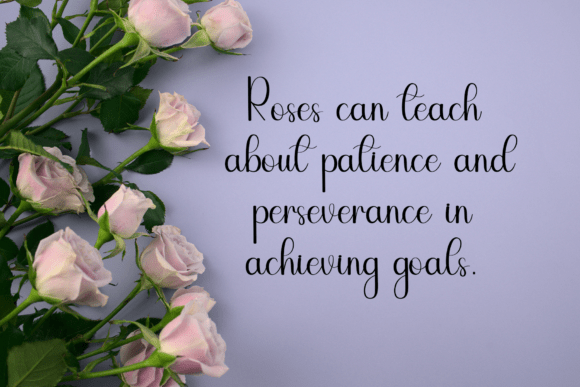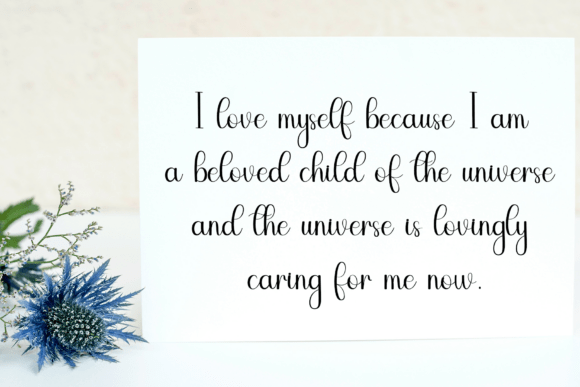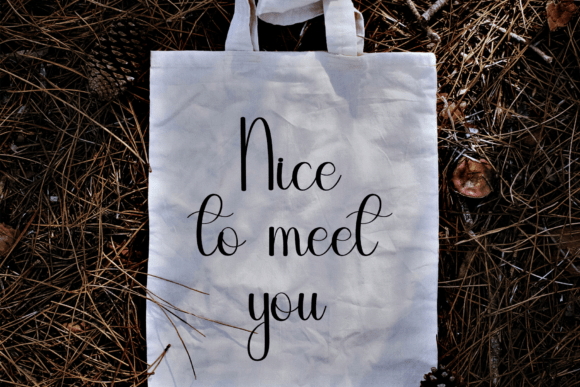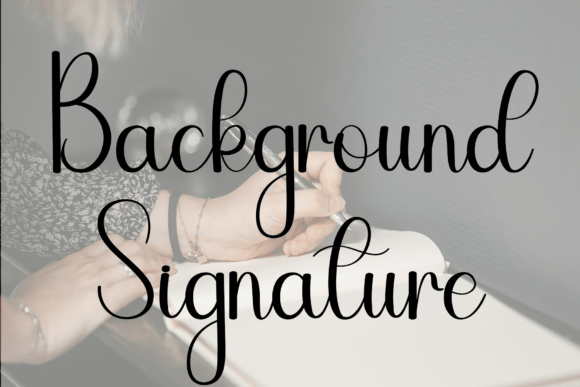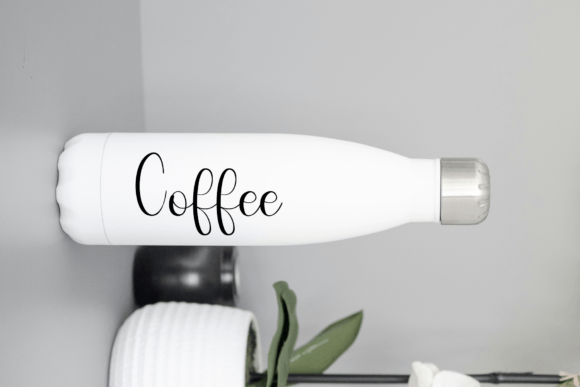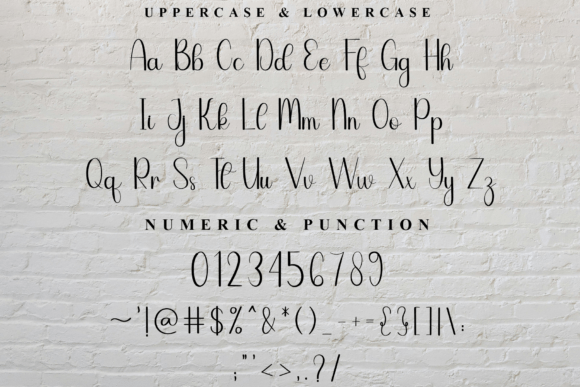
Carmila Font: Add a Touch of Holiday Magic to Your Designs
The holiday season is upon us, and what better way to get into the spirit than with a festive and merry typeface? Look no further than the Carmila Font, a decorative and whimsical font that’s perfect for adding a touch of enchantment to your designs. In this article, we’ll dive into the world of Carmila Font and explore its features, benefits, and uses.
What is Carmila Font?
Carmila Font is a beautifully crafted typeface that’s designed to capture the essence of the holiday season. With its decorative elements and whimsical flair, it’s the perfect addition to any holiday-themed project. Whether you’re creating greeting cards, gift tags, or festive posters, Carmila Font is sure to bring a cheerful and nostalgic ambiance to your words.
Key Features of Carmila Font
- Decorative Elements: Carmila Font features intricate and decorative elements that add a touch of magic to your designs.
- Whimsical Flair: The font’s whimsical flair makes it perfect for creating festive and playful designs.
- PUA Encoded: Carmila Font is PUA encoded, which means you can access all of the amazing glyphs and ligatures with ease!
- Festive and Merry: The font’s festive and merry design makes it perfect for holiday-themed projects.
Benefits of Using Carmila Font
So, why choose Carmila Font for your holiday designs? Here are just a few benefits of using this amazing typeface:
- Adds a Touch of Enchantment: Carmila Font adds a touch of enchantment to your designs, making them perfect for the holiday season.
- Increases Visual Appeal: The font’s decorative elements and whimsical flair make your designs more visually appealing.
- Perfect for Holiday Projects: Carmila Font is specifically designed for holiday-themed projects, making it the perfect choice for greeting cards, gift tags, and more.
- Ease of Use: The font’s PUA encoding makes it easy to access all of the amazing glyphs and ligatures.
Uses for Carmila Font
Carmila Font is a versatile typeface that can be used in a variety of ways. Here are some ideas to get you started:
- Greeting Cards: Use Carmila Font to create festive and merry greeting cards for your loved ones.
- Gift Tags: Add a touch of enchantment to your gift tags with Carmila Font.
- Holiday Posters: Use Carmila Font to create eye-catching holiday posters that showcase your brand’s personality.
- Social Media Graphics: Add a touch of holiday magic to your social media graphics with Carmila Font.
Tips for Using Carmila Font
Here are some tips for getting the most out of Carmila Font:
- Experiment with Colors: Try pairing Carmila Font with different colors to create a unique and festive look.
- Mix and Match: Mix and match Carmila Font with other typefaces to create a unique and eye-catching design.
- Use Decorative Elements: Take advantage of Carmila Font’s decorative elements to add a touch of magic to your designs.
Carmila Font is a beautifully crafted typeface that’s perfect for adding a touch of holiday magic to your designs. With its decorative elements, whimsical flair, and PUA encoding, it’s the perfect choice for greeting cards, gift tags, and holiday-themed projects. Whether you’re a designer or crafter, Carmila Font is sure to bring a cheerful and nostalgic ambiance to your words. So why wait? Get creative with Carmila Font today and make your holiday designs shine!